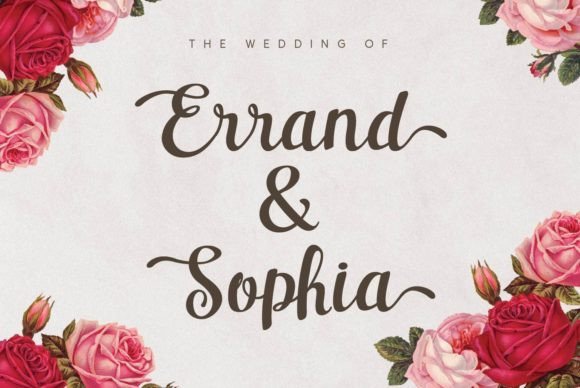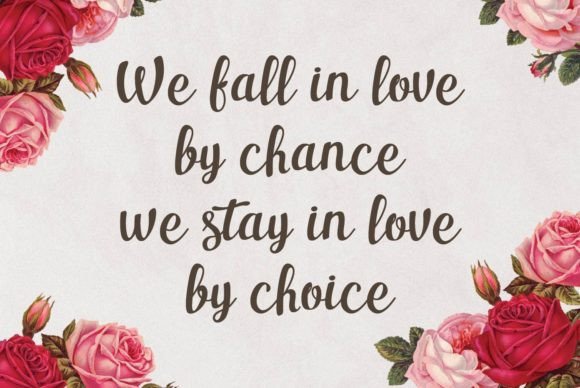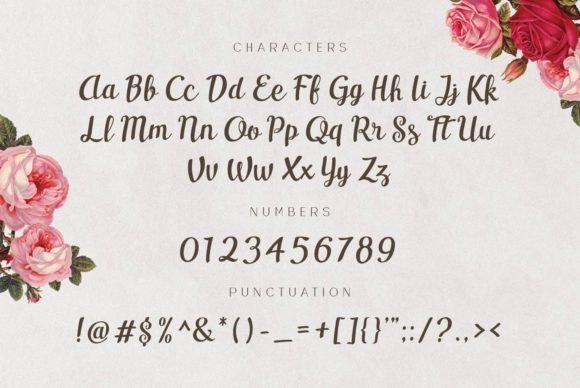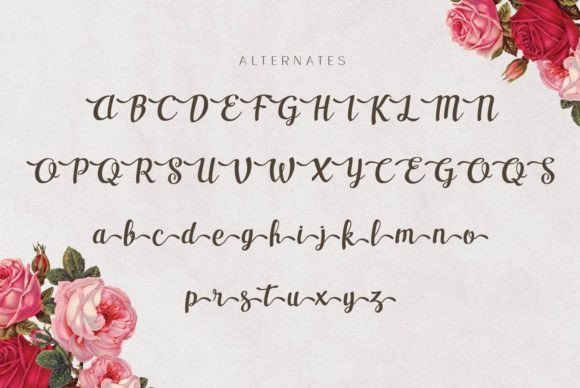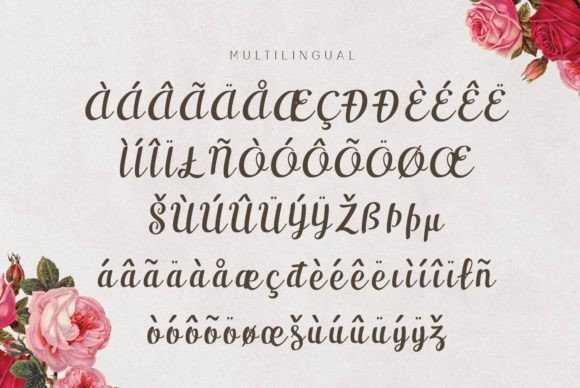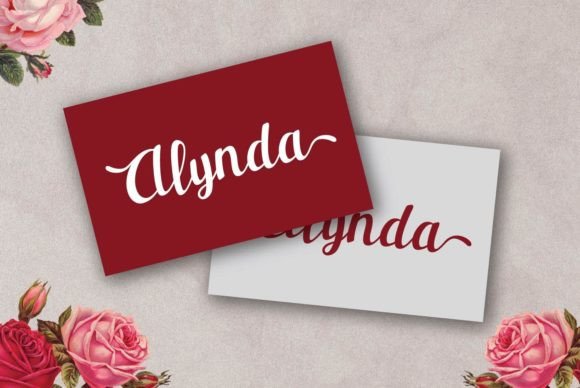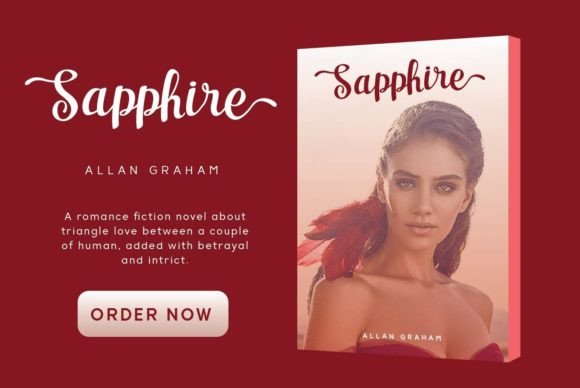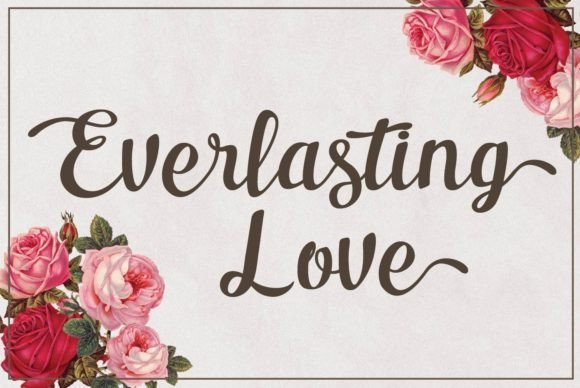
Casseron Font
About Casseron Font
Casseron is a delicate and well-rounded handwritten font, carefully crafted to bring an authentic touch to your crafty projects. This font is an excellent choice for various applications, including wedding invitations, birthday cards, personal branding, elegant logos, and more. Its versatile and genuine style ensures that your designs will stand out with a unique and handcrafted charm.
The delicate strokes and well-rounded characters of Casseron contribute to its authenticity, making it a standout option for projects that require a genuine and handmade aesthetic. Whether you’re working on personal branding or designing invitations for special occasions, this font enhances the overall visual appeal of your work.
Embrace the versatility of Casseron as you incorporate it into your designs. Watch as it adds a delicate and authentic typography element, bringing an extra layer of charm to your crafty and creative endeavors. Let Casseron be the font that elevates your projects, making them visually distinctive and memorable.